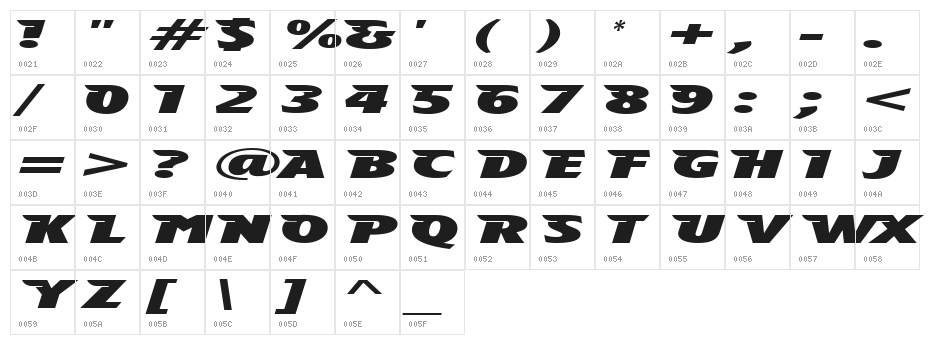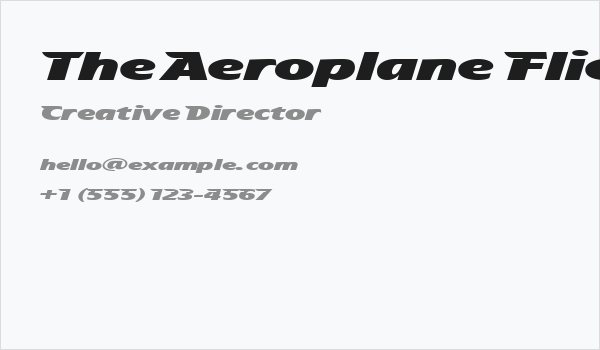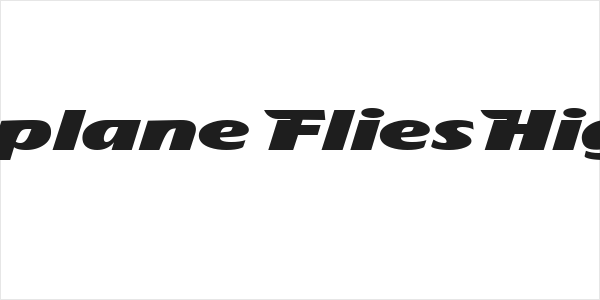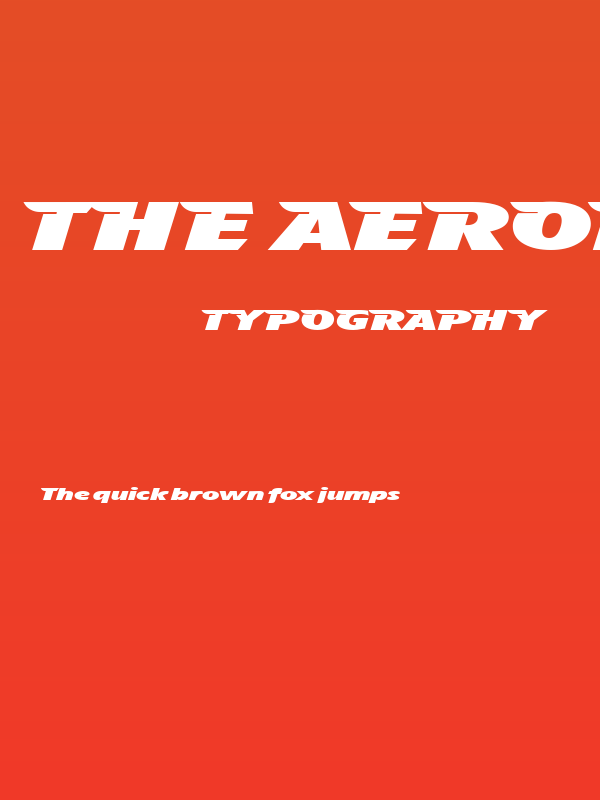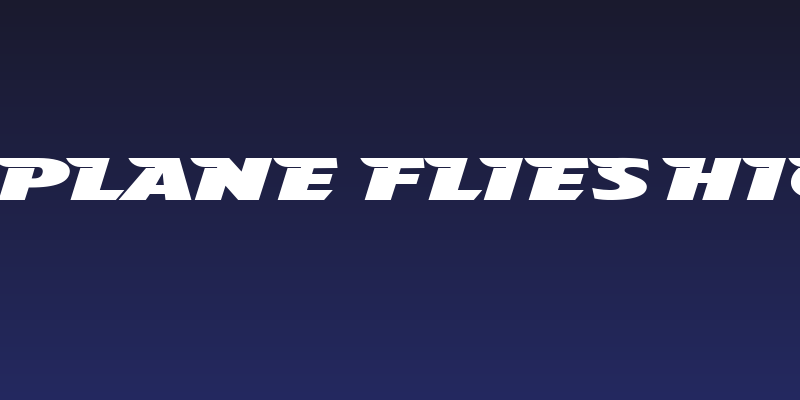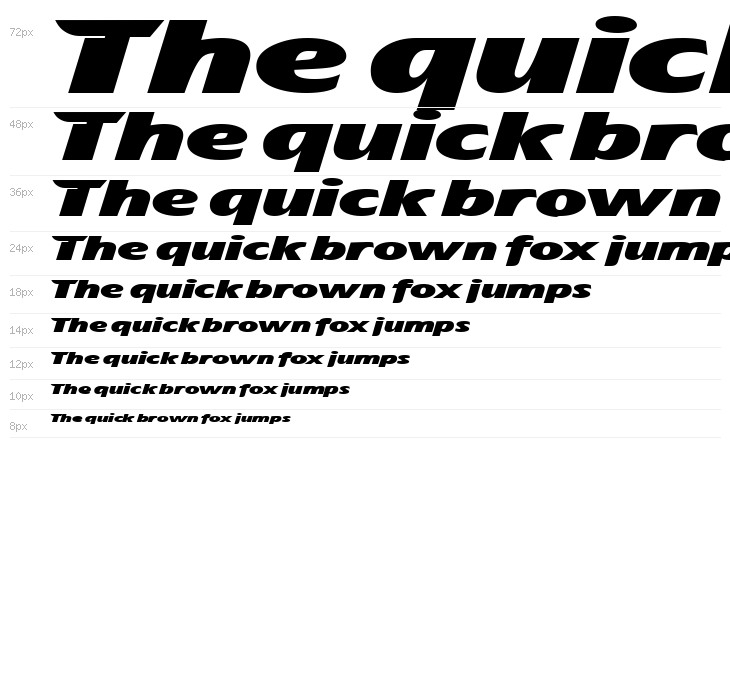
The Aeroplane Flies High Heavy Font
The Aeroplane Flies High Heavy Description
This font features a bold and dynamic style with a strong sense of movement and energy. The characters are designed with sharp angles and a slight slant, giving them a sense of forward motion. The uppercase letters are particularly striking, with wide, sweeping strokes that convey a sense of power and speed. The lowercase letters maintain this dynamic feel, though they are slightly more compact. The numerals and special characters are consistent with the overall design, ensuring a cohesive look across all elements. This font is ideal for projects that require a bold, impactful presence.